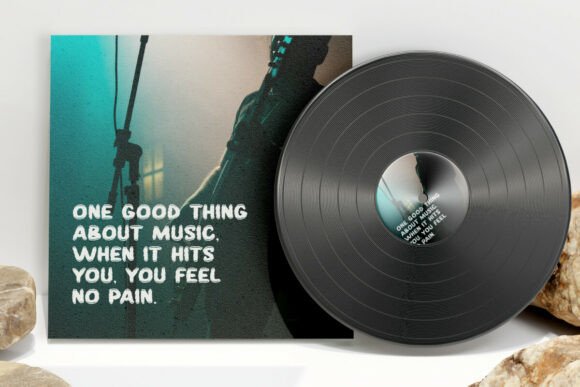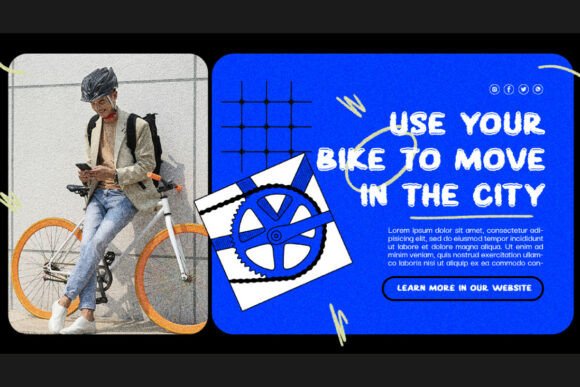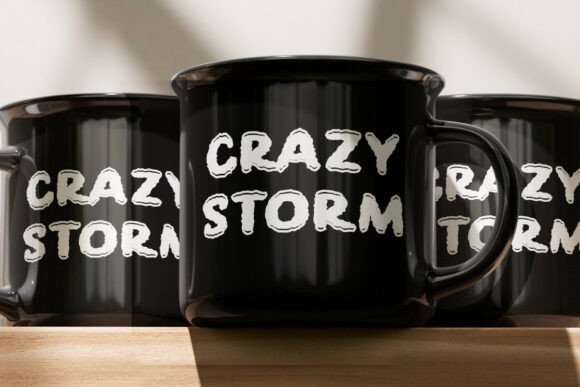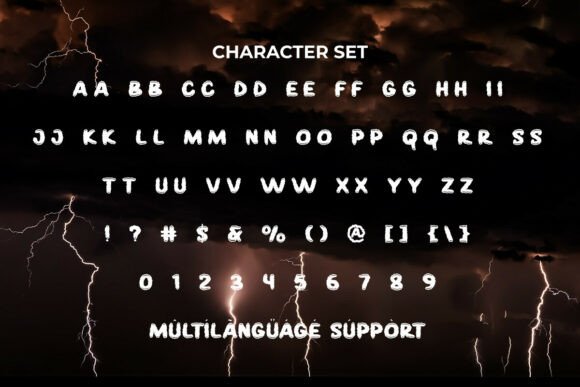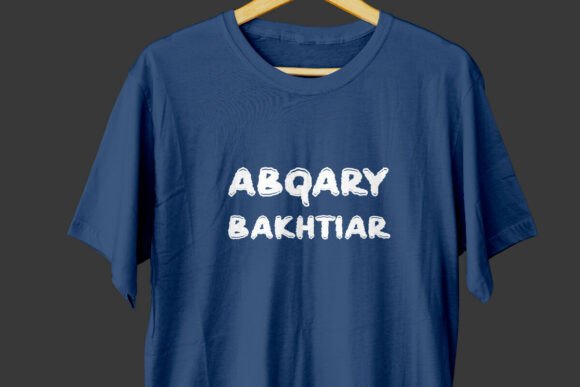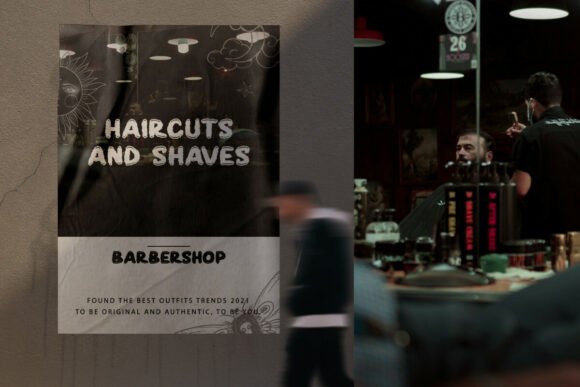
Unleash the Fury: Introducing the Crazy Storm Font
Are you tired of using the same old fonts that fail to capture the essence of your design? Look no further than the Crazy Storm font, an electrifying and aggressively distressed display font that’s sure to add a jolt of energy to your projects. This potent typeface is designed to evoke the raw, chaotic power of a severe weather event, making it perfect for designers who want to create high-intensity, rebellious designs that demand attention.
The Raw Power of Crazy Storm
Crazy Storm is more than just a font – it’s an experience. Each letter is a storm of its own, conveying a sense of immediacy, danger, and unbridled power. The rough, jagged edges and hand-carved, uneven baseline give the font a gritty texture that’s reminiscent of a rock band’s logo or a horror movie title. This font is not for the faint of heart; it’s for designers who want to push the boundaries of creativity and create something truly unforgettable.
Perfect for High-Impact Designs
Crazy Storm is a dynamic display font that’s supremely effective for a variety of design applications. Here are just a few examples of how you can use this font to add some edge to your designs:
- Rock Band Logos: If you’re designing a logo for a rock band, Crazy Storm is the perfect choice. The font’s aggressive, distressed look is sure to capture the high-energy spirit of a live music performance.
- Horror Movie Titles: Want to create a title sequence that will leave audiences on the edge of their seats? Crazy Storm is the perfect font for horror movie titles, with its jagged edges and gritty texture.
- Edgy Apparel Designs: If you’re designing apparel for a client who wants to make a statement, Crazy Storm is the perfect choice. The font’s bold, distressed look is sure to turn heads.
- Video Game Graphics: Crazy Storm is also perfect for video game graphics, where high-energy fonts are often needed to create an immersive experience.
Why Choose Crazy Storm?
So why choose Crazy Storm over other fonts? Here are just a few reasons why this font stands out:
- Unique and Memorable: Crazy Storm is a one-of-a-kind font that’s sure to make your designs stand out. Its unique, distressed look is unlike anything else out there.
- Highly Versatile: While Crazy Storm is perfect for high-impact designs, it’s also highly versatile. You can use it for a variety of design applications, from logos and titles to apparel and packaging.
- Easy to Read: Despite its distressed look, Crazy Storm is surprisingly easy to read. This makes it perfect for designs where you need to communicate a message quickly and effectively.
Tips for Using Crazy Storm
Here are a few tips for getting the most out of Crazy Storm:
- Use it Sparingly: While Crazy Storm is a powerful font, it can be overwhelming if used too much. Use it sparingly to create emphasis and add visual interest to your designs.
- Experiment with Colors: Crazy Storm looks great in a variety of colors, from bold and bright to dark and muted. Experiment with different colors to find the perfect look for your design.
- Pair it with Other Fonts: While Crazy Storm is a bold font, it can be paired with other fonts to create a more nuanced look. Try pairing it with a clean, sans-serif font to create contrast.
In conclusion, Crazy Storm is a powerful and versatile font that’s perfect for designers who want to create high-impact, rebellious designs. Its unique, distressed look is sure to turn heads, and its highly legible design makes it perfect for a variety of applications. Whether you’re designing a rock band logo, horror movie title, or edgy apparel, Crazy Storm is the perfect choice. So why wait? Download Crazy Storm today and unleash the fury in your designs!